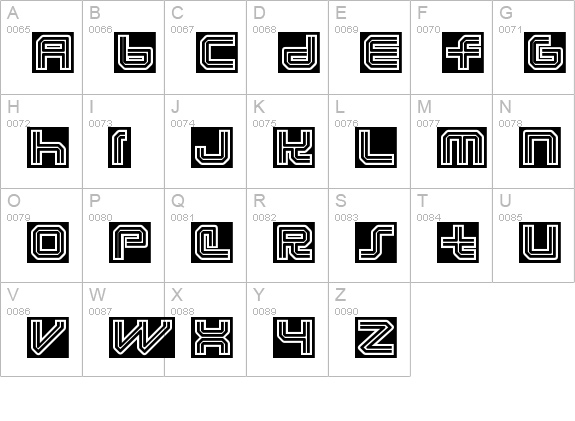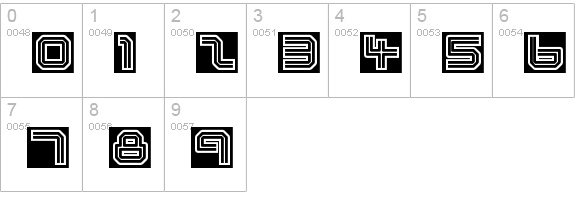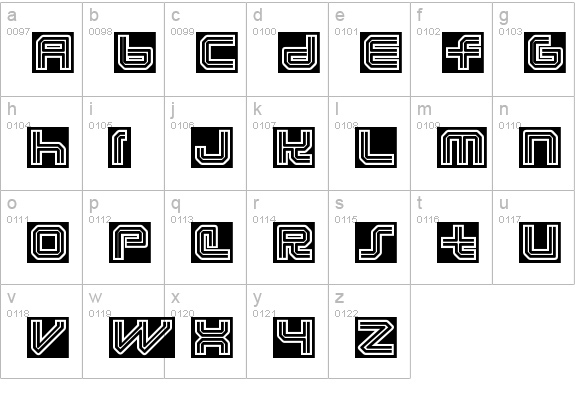
LunaEclipsed RL Font Details
LunaEclipsed RL font is a beautiful and elegant typeface that exudes a sense of mystery and sophistication. With its unique design elements and intricate details, this font is perfect for adding a touch of luxury to any project. The clean lines and sharp edges of LunaEclipsed RL font make it versatile and suitable for a wide range of design purposes, from branding to editorial layouts. But the best part? LunaEclipsed RL font is completely free! Yes, you heard that right. You can download this stunning font for absolutely no cost at FontsMarket.com. So why wait? Add a touch of elegance to your designs with LunaEclipsed RL font today!